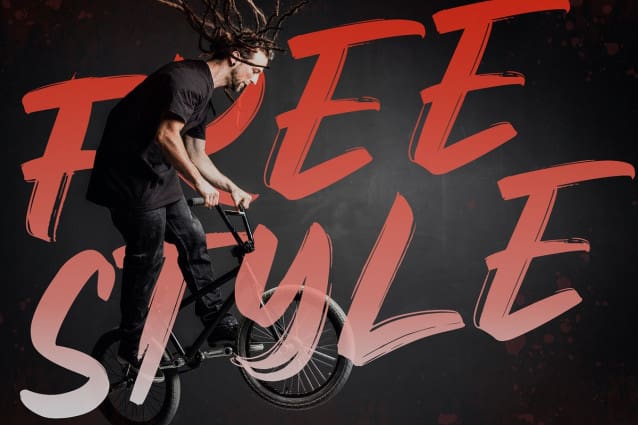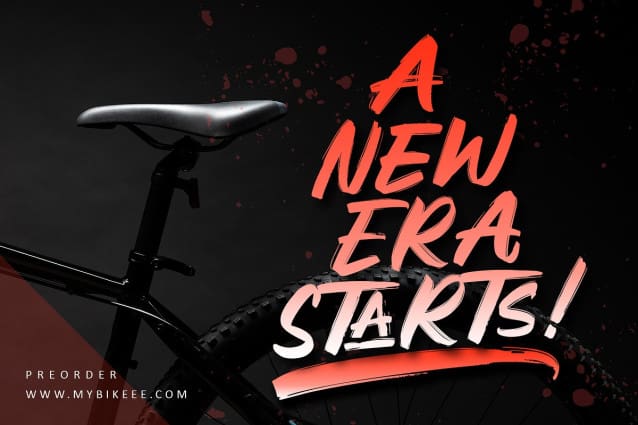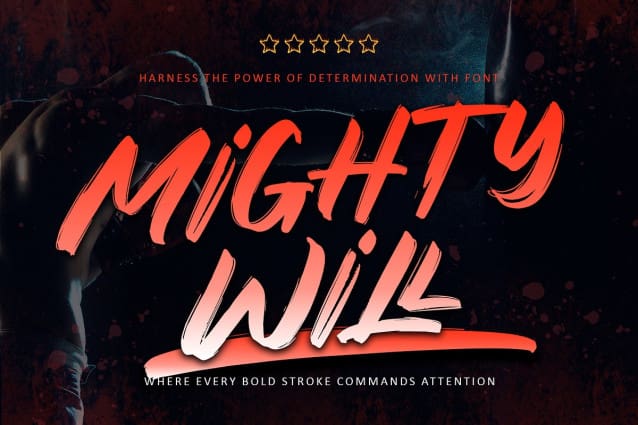
Mightywill Brush Font
Mightywill Brush Font a powerful brush font that exudes strength and character in every stroke. Perfect for making a statement on posters, dynamic branding, and impactful packaging, Mightywill commands attention with its raw, energetic strokes and unapologetic presence. This font combines the intensity of handcrafted artistry with the precision of modern design, creating a visual rhythm that captivates the eye. With PUA encoding, you’ll have seamless access to a rich variety of expressive glyphs and swashes, allowing your designs to stand out with a truly personal, handcrafted touch. Unleash your creative potential with Mightywill Brush , where every letter pulses with the spirit of determination.